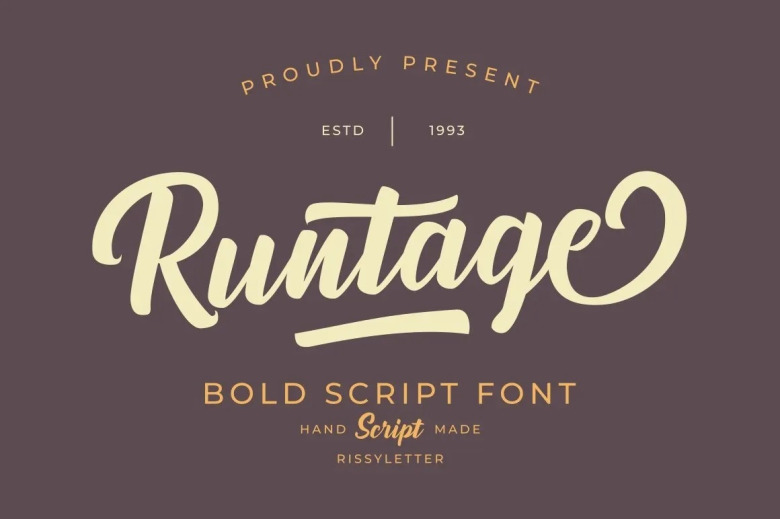
Runtage Font
Runtage Font is a chic and sophisticated handletter script font that also features for vintage projects. This font will give your project an extremely sophisticated look. There are several tasks that perfectly suit this font. They are logos and branding, merchandise, hand lettering, advertisements, invitation, social media posts, and more.
Runtage Bold Script Font